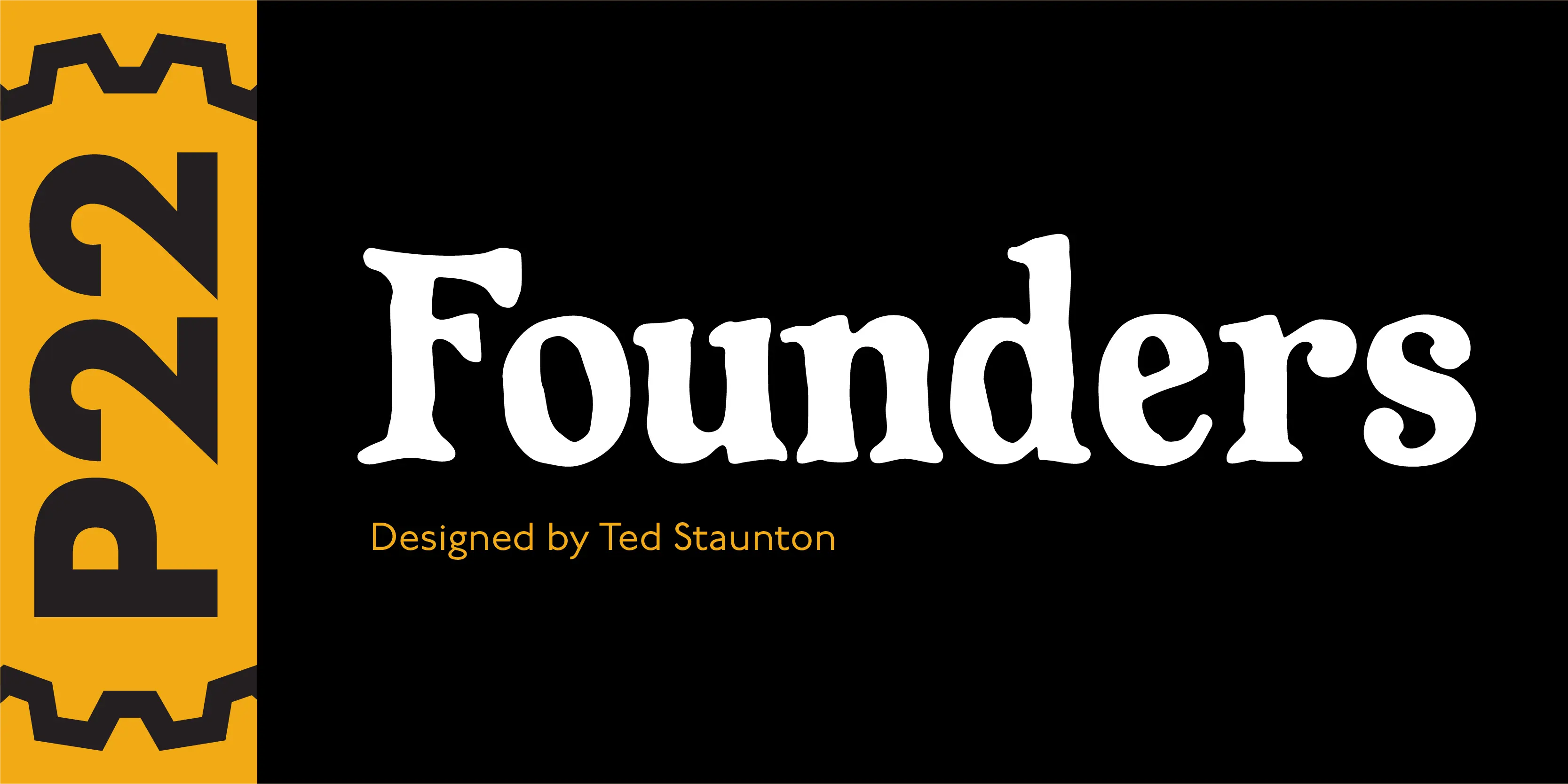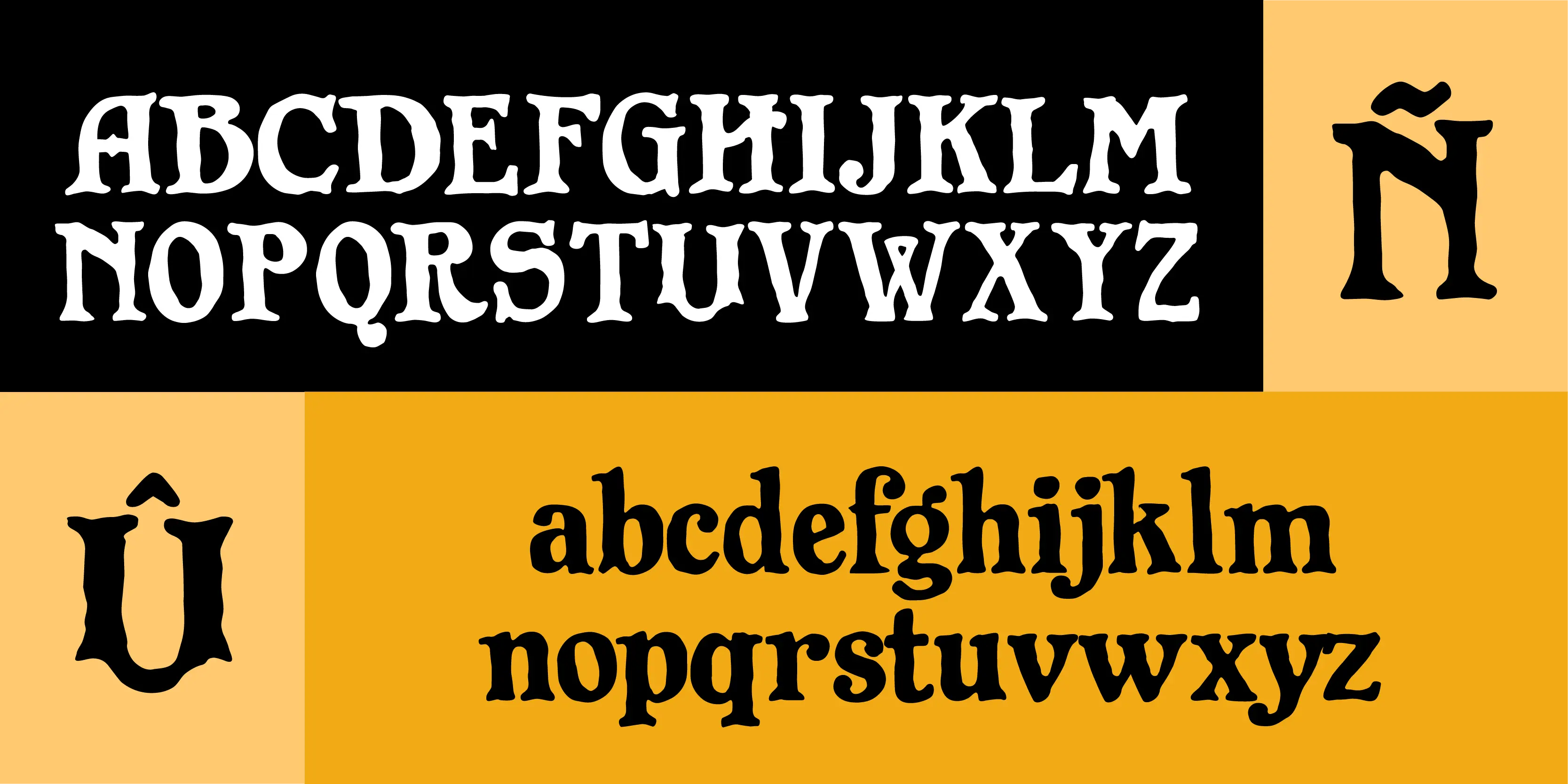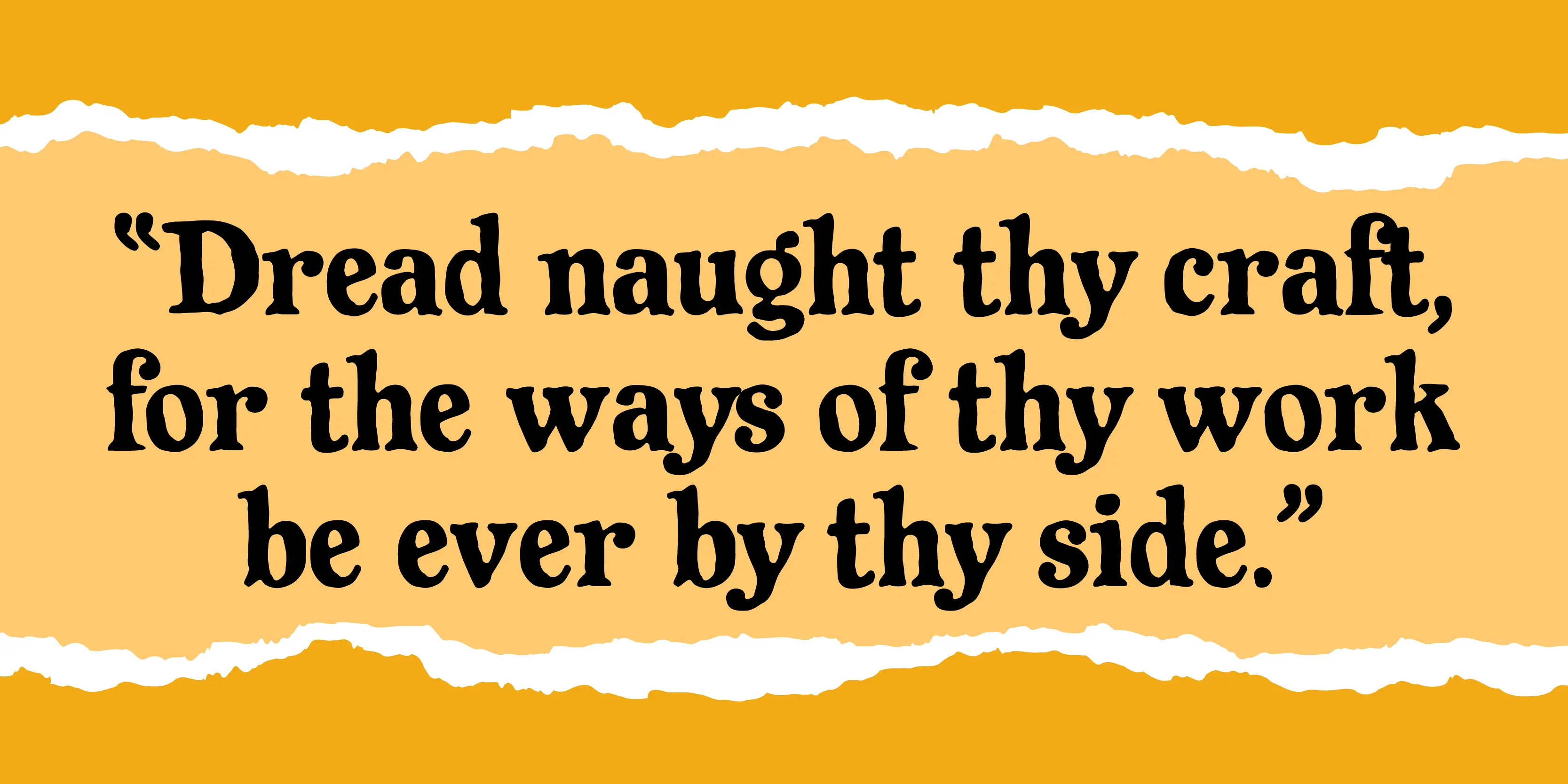
Founders Fonts
Founders
Founders is based on turn-of-the-century advertising type. A condensed, fat-faced display font with a touch of the medieval. The influence of art nouveau is also present in the high-waisted caps and flowing lines, putting the face into the early 20th century.